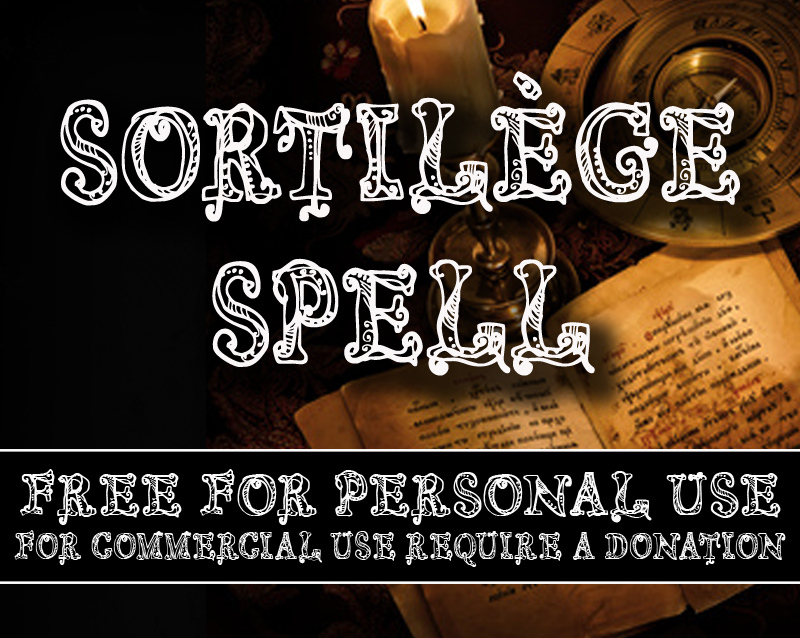
CF Sortilege by CloutierFontes is a free decorative display font shaped by exuberant Victorian ornament and a playful fairground spirit. Each capital twists into an uneven, densely patterned little illustration.
The Victorian-showbill influence makes it a lively fit for theatrical posters and confectionery packaging, where ornate type can become part of the attraction. The mix of curled serifs, dots, stripes, and leaf-like marks lets the lettering act as decorative artwork on merchandise and illustrated book covers rather than as a neutral caption. In editorial design, it is best suited to feature openers for children's publishing focused on magic, spectacle, or eccentric tales.
CF Sortilege Regular is a font by CloutierFontes, designed by Steve Cloutier in 2013.